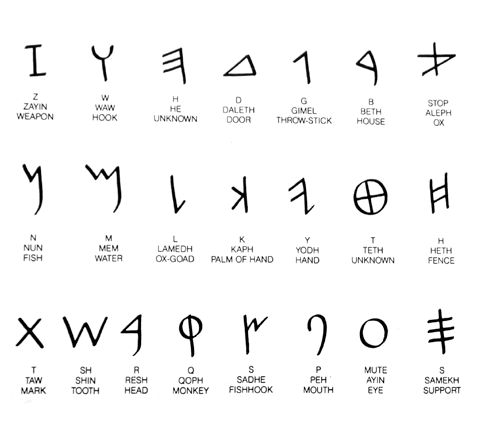
The Phoenician alphabet was based on the principle that one sign represents one spoken sound. Below each sign is shown its sound value, name and meaning. Reads from right to left.